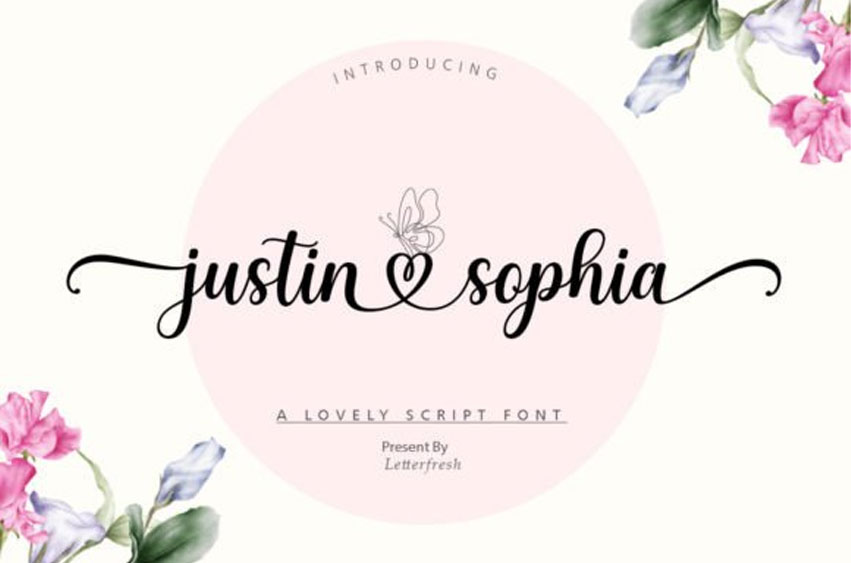
Justin Sophia Font is a modern and lovely font with harmonious handwritten characters.
Add it confidently to your invitations, greeting cards, posters, and quotes for a sensitive touch.